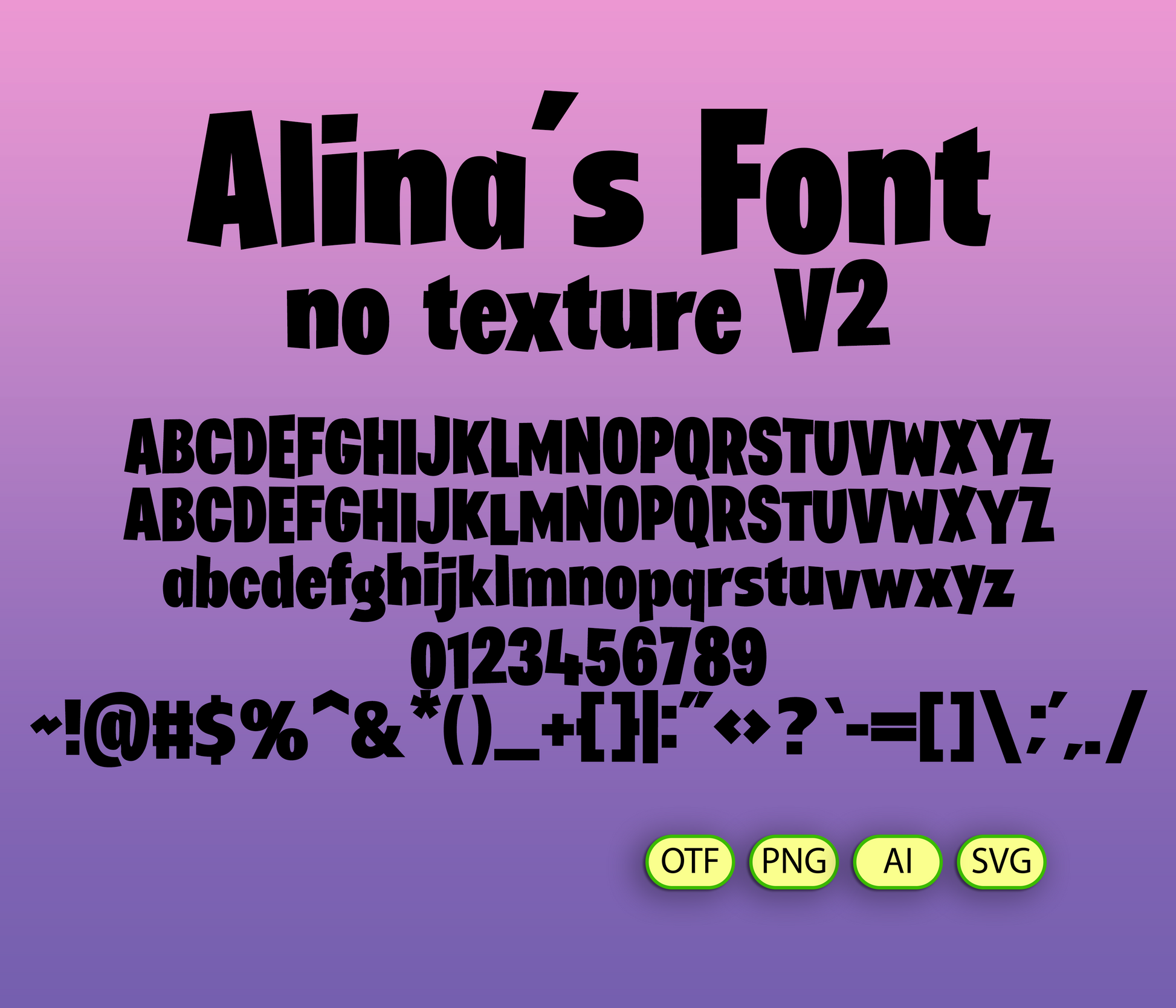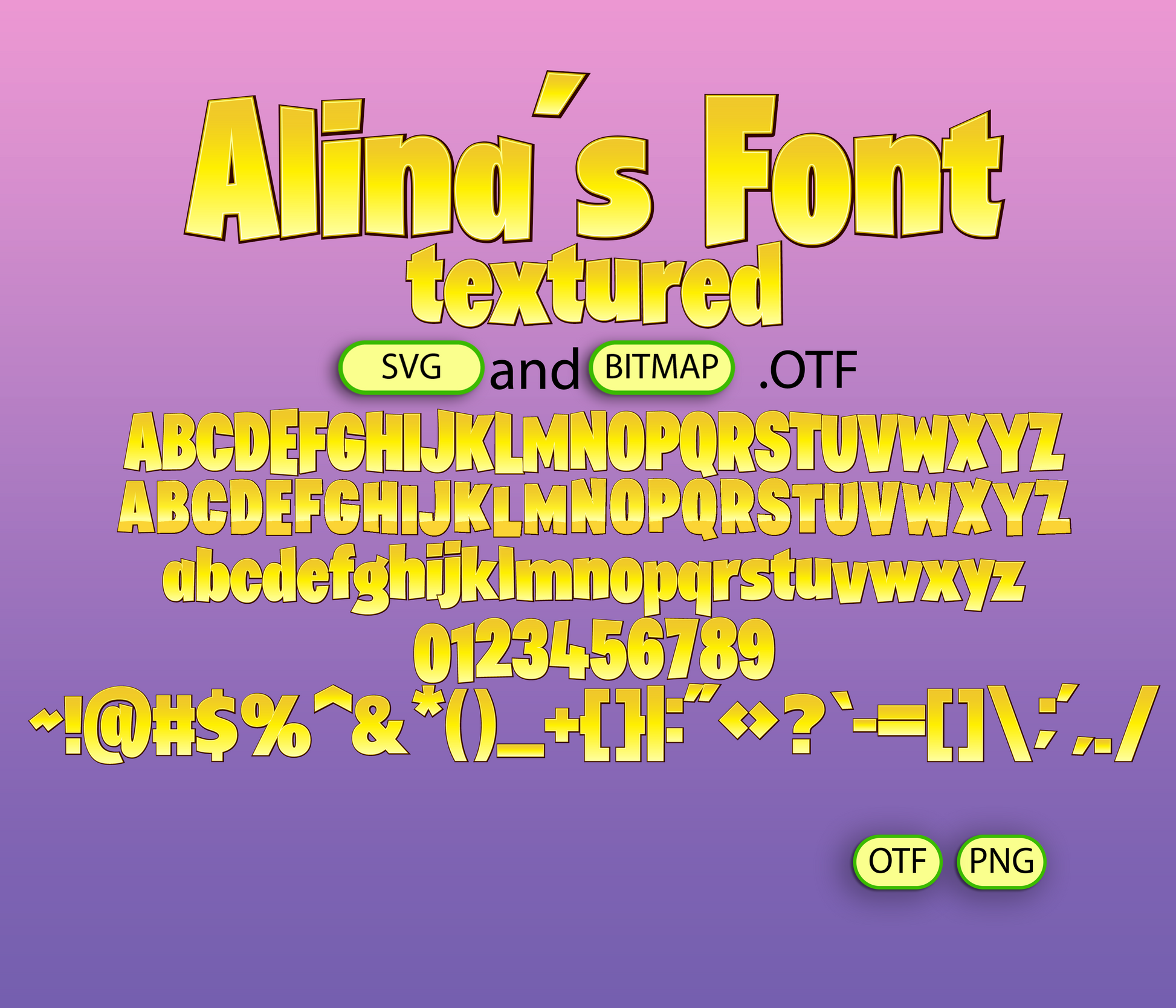
Victory Island Font Textured
Step into the electrifying arena of last-stand gaming with our Victory Island font, capturing the essence of survival battles and triumphant emotes. Perfect for gamers, streamers, content creators, and designers, this font brings the colorful, dynamic spirit of battle island action to your projects. Create gaming-themed materials, merchandise, or digital content with the adrenaline-pumping energy of this legendary battleground.
Our Victory Island font features vibrant, energetic lines and playful characters reflecting the fun-filled world of strategic survival gaming. Ideal for:
- Streaming Essentials: Create eye-catching overlays, emote alerts, and victory banners for gaming streams that capture the thrill of last-player-standing action.
- Content Creation: Perfect for video thumbnails, dance challenge intros, and social media posts that showcase your island victories.
- Digital Media: Enhance gaming channels, blogs, and social media with dynamic headers and graphics that express the excitement of battle drops.
- Tournament Materials: Add authentic flair to gaming competitions, player meetups, and dance-off events.
- Fan Projects: Bring island vibes to merchandise designs, DIY crafts, and gaming room decor inspired by the world of building battles.
Our font pays tribute to the beloved world of island battles, empowering your designs with its vibrant and victorious spirit. Whether crafting stream assets, designing victory royale merchandise, or adding a dynamic touch to personal projects, this font communicates the bold essence of drop-in gaming action. Ready to inject battle bus excitement into your creations? This font is your key to exciting, impactful design.